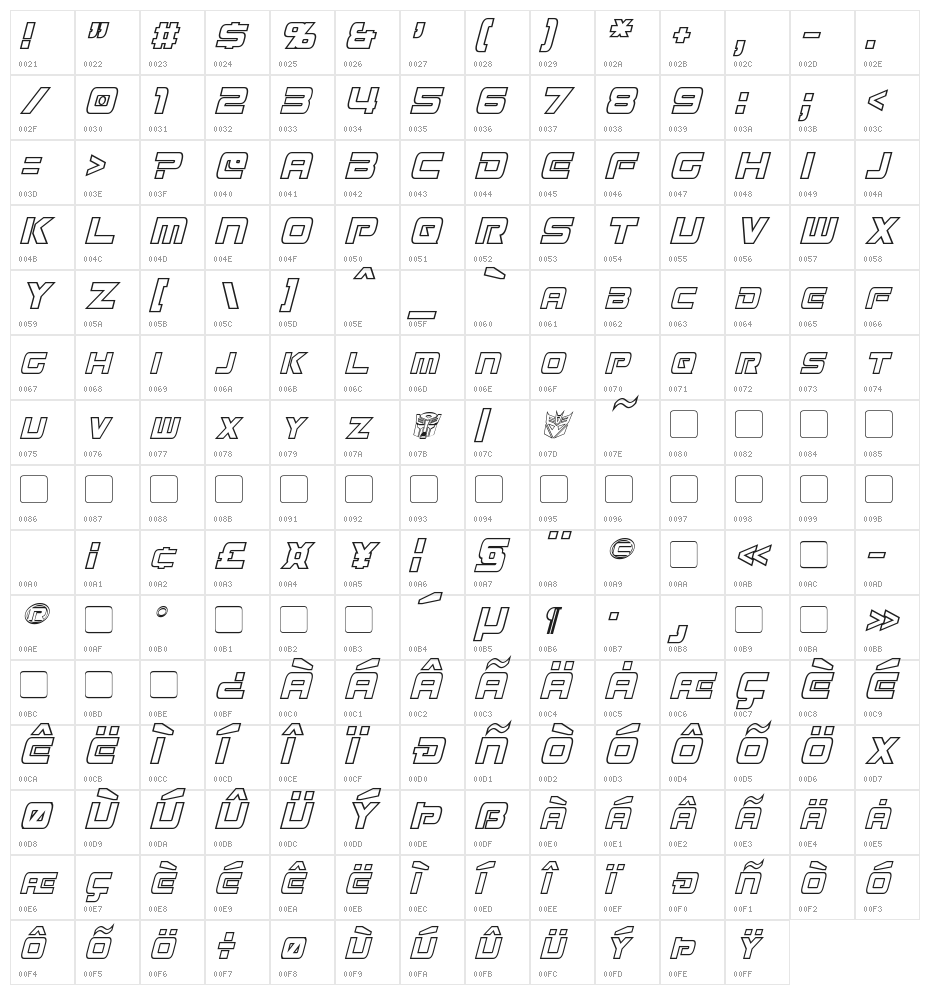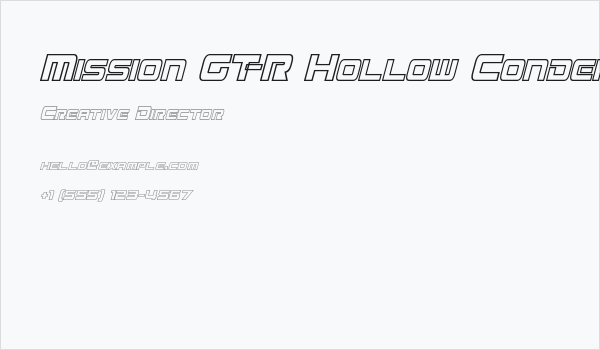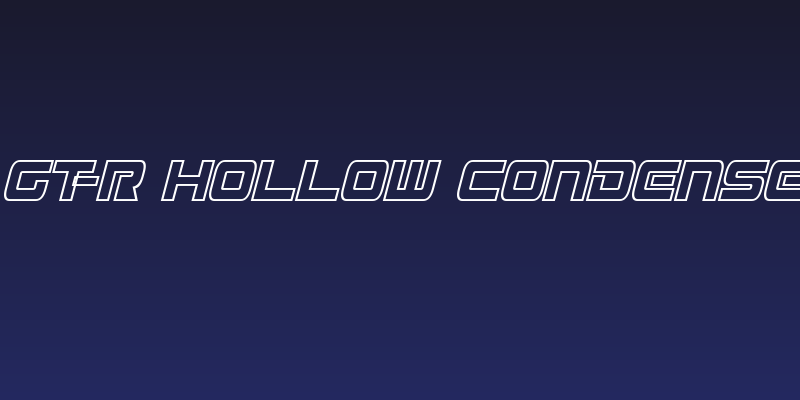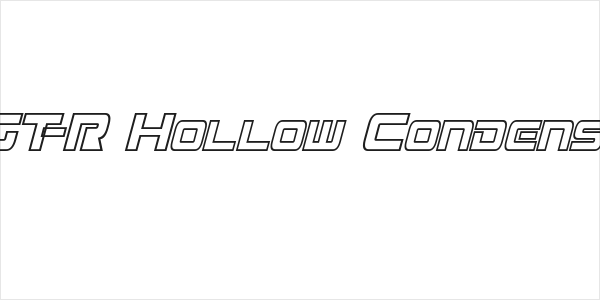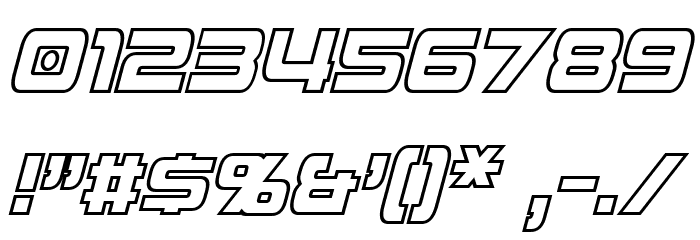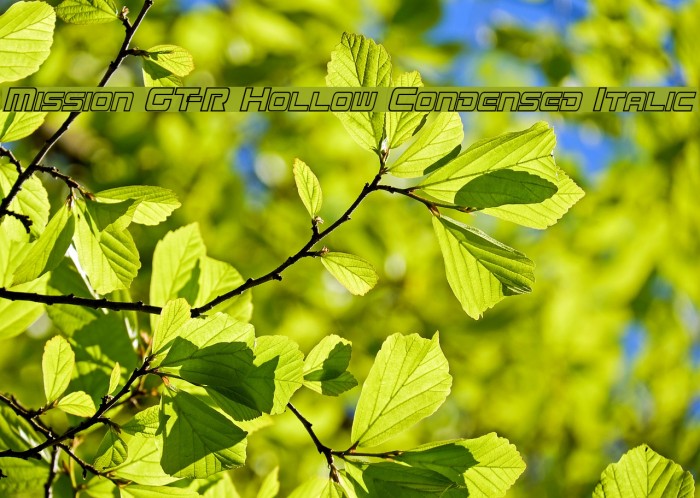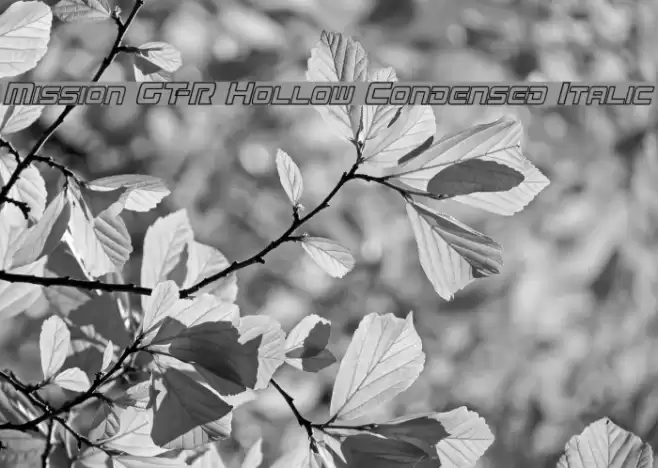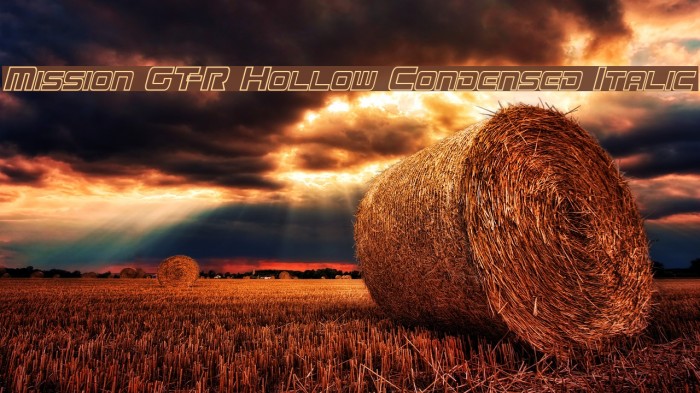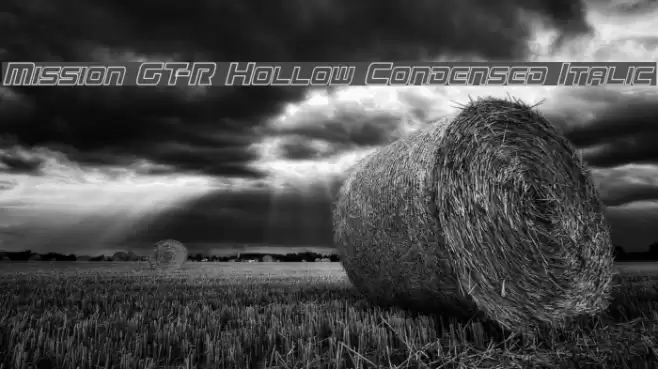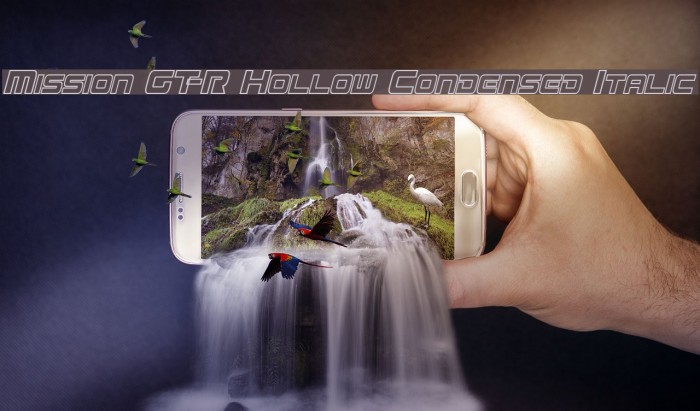
Mission GT-R Hollow Condensed Italic Font
Mission GT-R Hollow Condensed Italic Description
This font features a distinct hollow design with a condensed and italicized style, giving it a dynamic and futuristic appearance. The characters are outlined, creating a bold yet airy look that stands out. The angular and geometric shapes of the letters convey a sense of speed and modernity, making it ideal for projects that require a cutting-edge aesthetic. The uppercase and lowercase letters maintain a consistent style, while the numbers and special characters are designed to complement the overall theme. The font's unique structure makes it suitable for attention-grabbing headlines and logos.
| Proposed Projects | Ideal for sci-fi themed designs, technology branding, automotive logos, and modern advertising campaigns. |